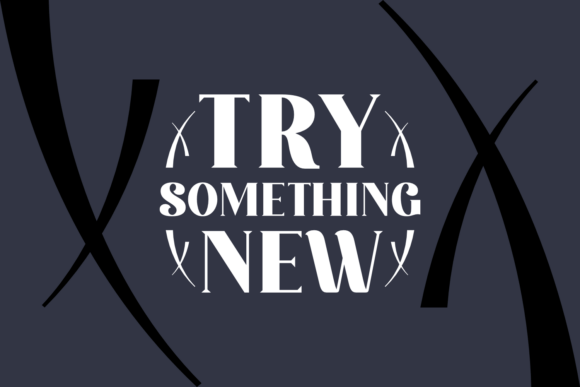
Design Inspiration Strikes
Remember that moment when you’re scrolling through social media, and a bold headline catches your eye? You can’t help but pause, read, and share. It’s a fleeting moment, but it’s enough to spark your creativity and leave a lasting impression. That’s exactly what a well-designed font can do – make your message stand out and leave a lasting impression on your audience.
For designers, the right font can be the difference between a good design and a great one. That’s why we’re excited to introduce you to Habits Font, a modern, bold serif font that combines classic elegance with a contemporary flair. With its strong lines and distinctive letterforms, Habits Font is perfect for headlines and eye-catching designs that convey confidence and style.
Habits Font Key Features
- Unique Characteristics: Habits Font features a unique blend of modern and minimalist design elements, making it an excellent choice for a wide range of applications, from digital products to print materials.
Habits Font Review
I’ve had the chance to work with the Habits Font, and here’s my honest review.
First off, the font has a unique, modern aesthetic that’s perfect for digital products and modern branding. The clean lines and subtle rounded edges give it a friendly, approachable feel that’s easy to read. The font also comes in a range of weights, from light to bold, which is great for adding some visual interest to your designs.
I also appreciate the font’s versatility – it works well for both headings and body text, making it a great all-around choice for designers.
- The font’s uniqueness can also be a drawback, as it may not be as widely recognized or supported by older systems or browsers.
- The light weights can be a bit thin and may not be as legible at smaller sizes.
Overall, I think the Habits Font is a great choice for designers who want a modern, approachable font that’s easy to read. While it may have some limitations, its unique aesthetic and versatility make it a solid addition to any designer’s toolkit.
Tips for Getting the Most Out of Habits Font
For the best results, use Habits Font in conjunction with bold or italic styles to create emphasis.
Use Habits Font in headings and titles to create a clear visual hierarchy.
Habits Font is ideal for creating motivational quotes, goal-setting worksheets, and productivity planners.
Use Habits Font to create eye-catching headings and titles for presentations and reports.
Habits Font is also suitable for creating infographics and charts with a clean and modern
Alternatives to Habits Font
Open Sans is a clean and modern sans-serif font. It’s a great alternative to Habits Font for designers who want a simple and elegant look. Open Sans is highly legible and works well for body text and headings. It’s a popular choice for digital products and websites. When to use: For clean and simple designs, especially for digital products and websites.
Comparison to Habits Font: Open Sans is more minimalist and lacks the rounded edges of Habits Font. Open Sans is also more versatile and comes in a wide range of weights and styles.